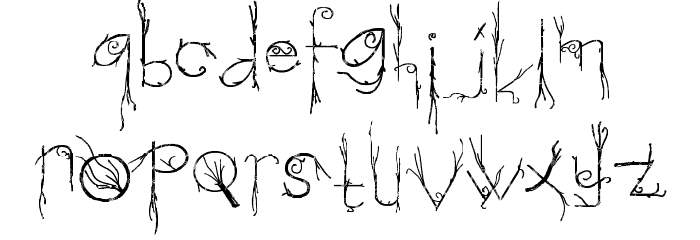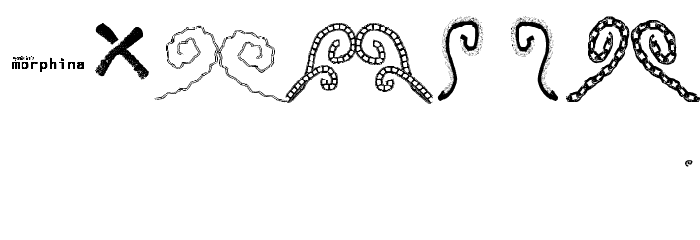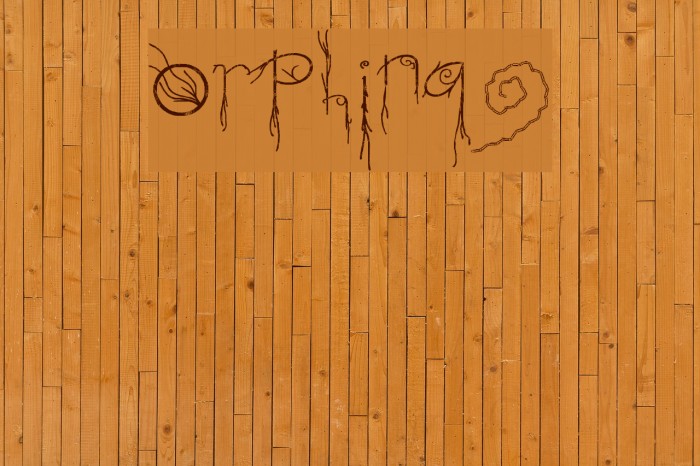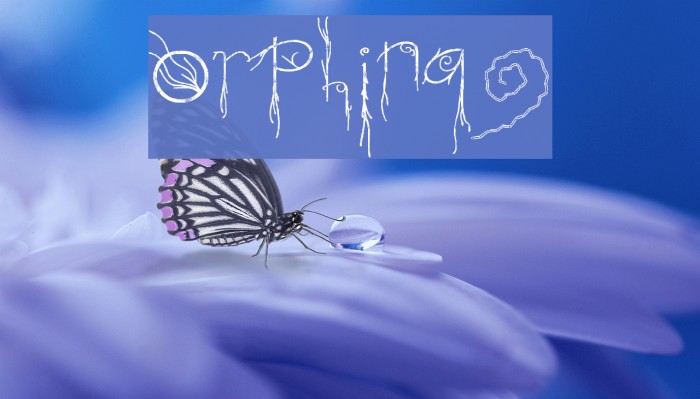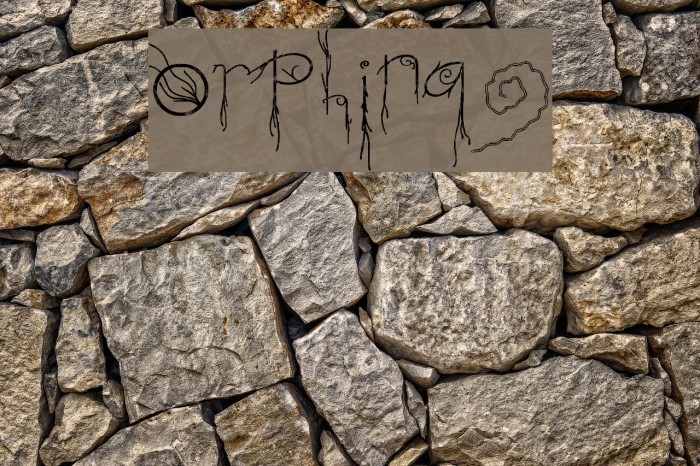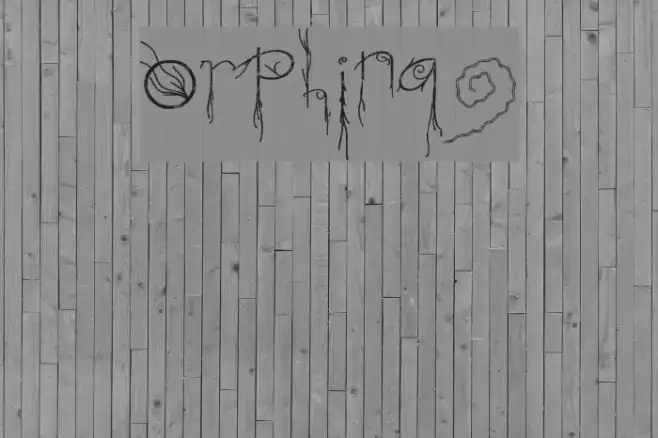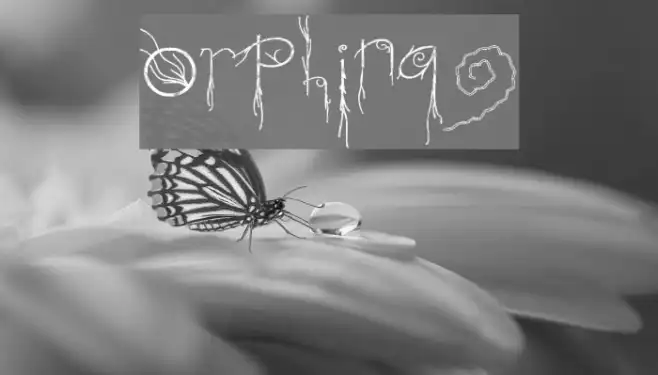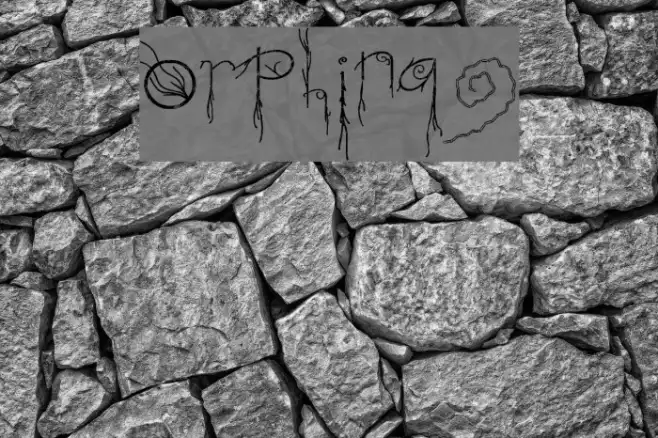
Morphina2 Font
This font features a unique, organic design with letters that appear to be crafted from twisting vines or tendrils. The characters have an intricate, whimsical quality, with each letter exhibiting a distinct, hand-drawn appearance. The lowercase letters are particularly elaborate, with extended strokes and decorative elements that give the font a playful yet mysterious vibe. The overall style is reminiscent of fantasy or nature-inspired themes, making it ideal for projects that require a touch of enchantment or creativity. The font's decorative nature makes it stand out, though it may not be suitable for body text due to its complexity.
An organic, vine-like decorative font with a whimsical, fantasy-inspired style.
- Proposed Projects: Ideal for fantasy book covers, nature-themed posters, whimsical invitations, and creative branding.